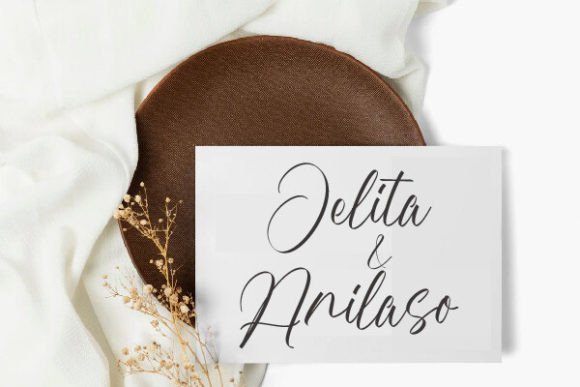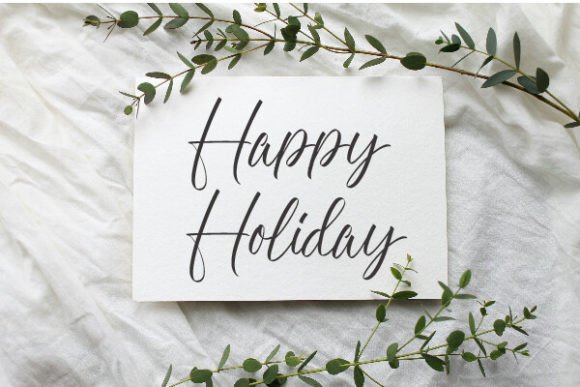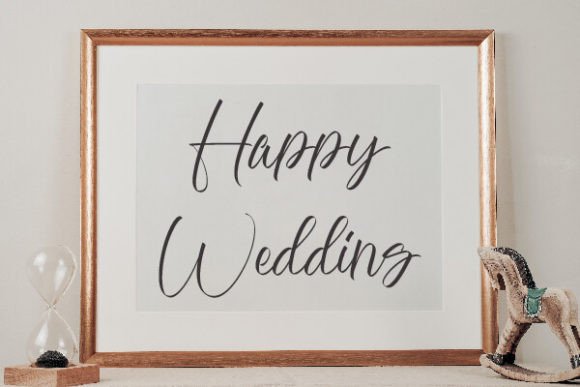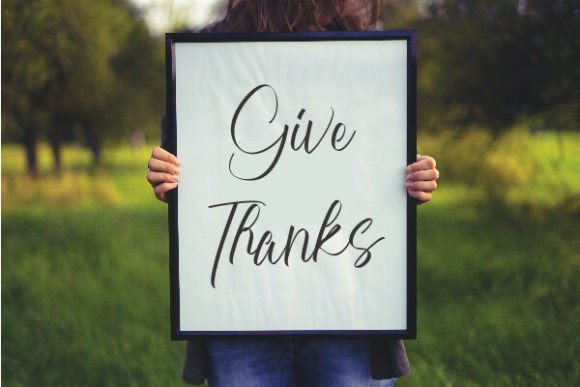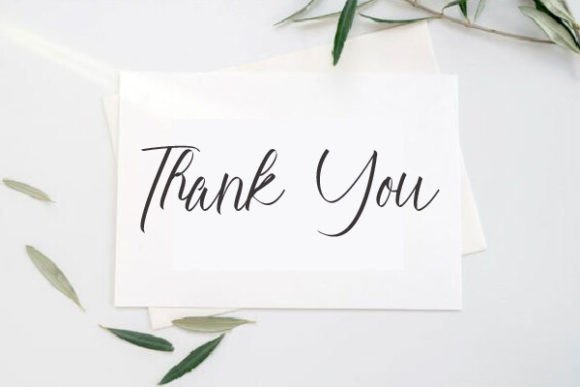
Introducing Alsopya Font: Elevate Your Designs with a Stylish and Bold Handwritten Touch
Are you tired of using the same old fonts for your designs? Do you want to add a touch of personality and style to your headlines and logotype projects? Look no further than Alsopya Font, a gorgeous and bold handwritten font that’s sure to take your designs to the next level. In this article, we’ll dive into the features and benefits of Alsopya Font, and explore how it can add a nostalgic character to your designs.
What is Alsopya Font?
Alsopya Font is a carefully crafted handwritten font that’s designed to give your designs a strong, confident, and dynamic look. With its bold and stylish strokes, Alsopya Font is perfect for headlines, logotypes, and any other design project that requires a touch of personality. Whether you’re a designer, craftsperson, or simply someone who loves to dabble in creative projects, Alsopya Font is a versatile and easy-to-use font that’s sure to impress.
Key Features of Alsopya Font
- Bold and Stylish: Alsopya Font features bold and stylish strokes that are sure to make your designs stand out.
- Handwritten Touch: With its handwritten feel, Alsopya Font adds a touch of personality and warmth to your designs.
- Strong and Confident: Alsopya Font reads strong, confident, and dynamic, making it perfect for headlines and logotype projects.
- Nostalgic Character: Alsopya Font has a nostalgic feel that’s sure to add a touch of vintage charm to your designs.
- Versatile: Alsopya Font is a versatile font that can be used for a wide range of design projects, from branding and advertising to crafting and scrapbooking.
Benefits of Using Alsopya Font
So why choose Alsopya Font for your design projects? Here are just a few benefits of using this gorgeous and bold handwritten font:
- Adds Personality: Alsopya Font adds a touch of personality and style to your designs, setting them apart from the crowd.
- Easy to Use: Alsopya Font is easy to use and can be easily integrated into your design projects.
- High-Quality: Alsopya Font is a high-quality font that’s designed to produce crisp and clear results.
- Nostalgic Feel: Alsopya Font has a nostalgic feel that’s sure to evoke memories and emotions.
How to Use Alsopya Font in Your Designs
Using Alsopya Font in your designs is easy. Here are a few tips to get you started:
- Pair with Other Fonts: Alsopya Font pairs well with other fonts, so feel free to experiment with different combinations.
- Use for Headlines: Alsopya Font is perfect for headlines and titles, where its bold and stylish strokes can really make an impact.
- Add to Logotypes: Alsopya Font is also great for logotypes and branding projects, where its nostalgic feel can help to create a sense of heritage and tradition.
- Experiment with Colors: Alsopya Font looks great in a range of colors, so don’t be afraid to experiment and find the perfect hue for your design.
In conclusion, Alsopya Font is a gorgeous and bold handwritten font that’s sure to elevate your designs to the next level. With its strong, confident, and dynamic strokes, Alsopya Font is perfect for headlines, logotypes, and any other design project that requires a touch of personality. Whether you’re a designer, craftsperson, or simply someone who loves to dabble in creative projects, Alsopya Font is a versatile and easy-to-use font that’s sure to impress. So why wait? Download Alsopya Font today and start adding a stylish and nostalgic touch to your designs!